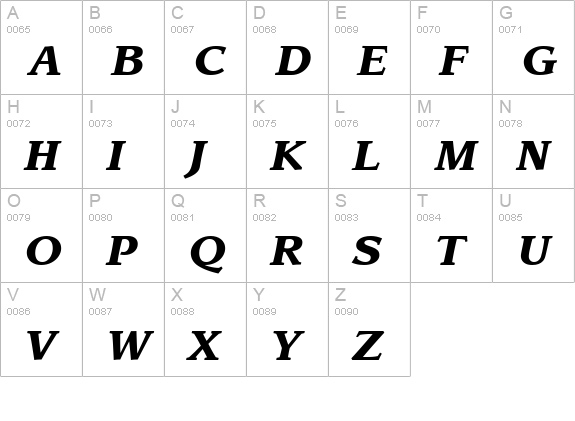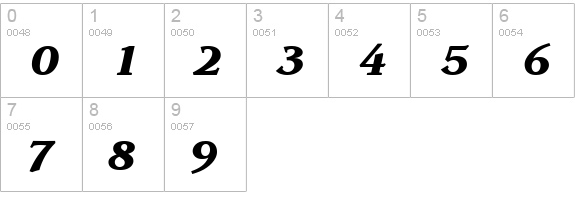
Advisor Black SSi Black Italic is a maximum-weight, dramatic, italic variant in the Advisor typeface family \xE2\x80\x94 well suited to maximum-impact headlines, posters, and packaging.
Introducing the elegant and sophisticated Advisor Black SSi Black Italic font, a stunning addition to any design project. This modern and stylish font features sleek lines and a bold presence that commands attention. Perfect for creating eye-catching headlines, logos, branding materials, and more, Advisor Black SSi Black Italic adds a touch of class and professionalism to any design. And the best part? This impressive font is available for free download at FontsMarket.com! Now you can elevate your projects with this premium font without breaking the bank. Don't miss out on the opportunity to enhance your designs with the sleek and contemporary Advisor Black SSi Black Italic font - download it for free today!